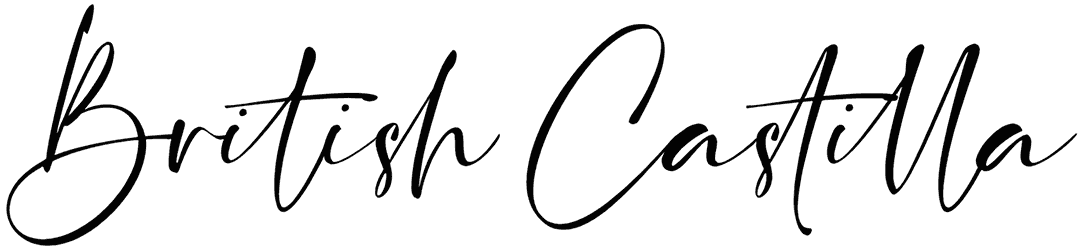
British Castilla Font
Grab all attention to your text layout with this script font! This case features thin and curly characters and will add a soft mood to your design. This font works flawlessly for a bunch of projects such as cosmetic packages, printed quotes, display banners, and so forth. Don’t hesitate and download British Castilla like a shot!